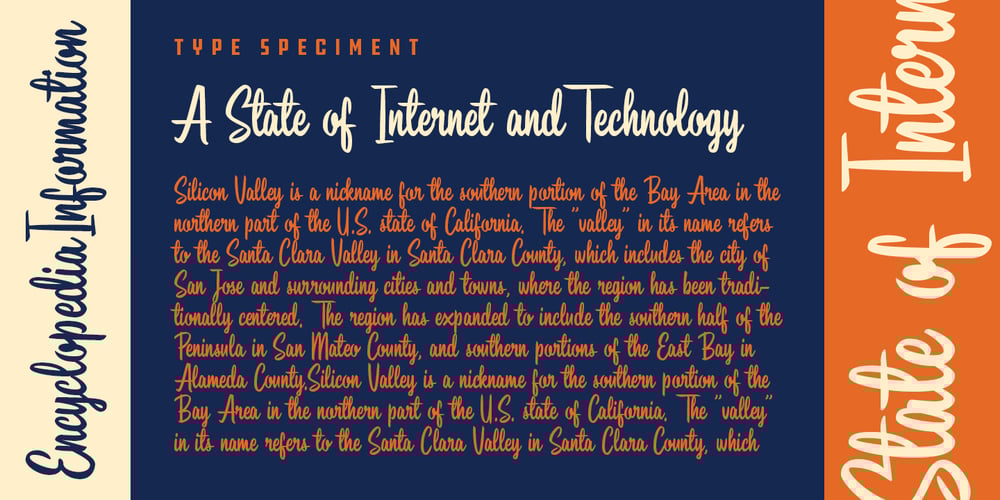
Santhen Font Family was designed by Aliv Pandu, Hamam Jauhari and published by Wacaksara co. Santhen contains 3 styles and family package options. Introducing Santhen! A handlettering styles brush font inspired by classic styles of paint stripped typography. It’s the perfect choice for personal branding projects, handwritten quotes, homeware designs, product packaging or simply as a modern & stylish text overlay to any background image. Santhen is available in two styles. Santhen also comes with uppercase, lowercase, numerals, punctuations, common ligatures and also additional swash to let you customise your designs.